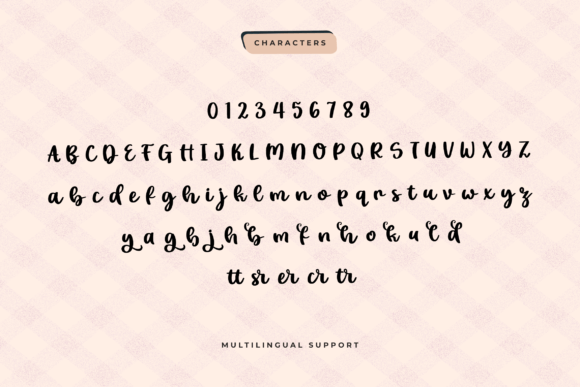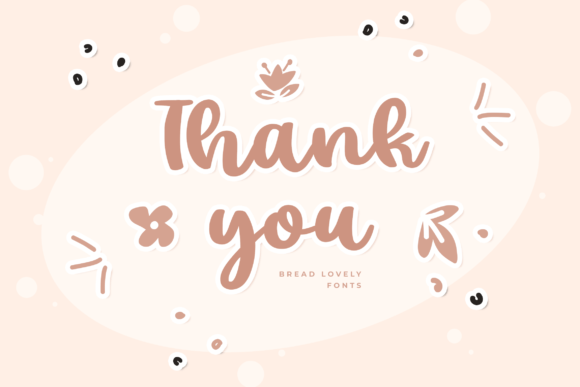
The Sweet Spot: Discovering Bread Lovely Font
I still remember the design project that led me to fall in love with the Bread Lovely font. I was working on a whimsical branding campaign for a bakery, and I needed a font that could capture the warmth and playfulness of their brand. After hours of scrolling through font libraries, I stumbled upon Bread Lovely, and it was like the icing on the cake (pun intended)! This cute handwritten script font instantly resonated with the bakery’s vibe, and I knew I had found the perfect match.
What I Love About Bread Lovely ✨
- ✅ Its whimsical and charming personality is perfect for designs that need a touch of playfulness
- ✅ The font’s handwritten feel makes it ideal for quotes, poems, and other creative writing projects
- ✅ Bread Lovely’s versatility allows it to shine in various design applications, from shirt designs to website headers
- ✅ The font’s clean and legible design ensures that it remains readable even at smaller sizes
While Bread Lovely is an amazing font, it’s not without its quirks. For instance:
- ⚠️ Some letters may appear a tad too ‘cutesy’ for very formal or corporate designs
- ⚠️ The font’s script nature means it may not be the best choice for very long blocks of text
- Experiment with OpenType features, such as ligatures and stylistic alternates, to add personality to your text
- Explore the OpenType panel to activate features like glyphs, ligatures, and stylistic sets
Bread Lovely was designed with the intention of capturing the warmth and playfulness of handwritten scripts. Its creator aimed to craft a font that would bring a smile to the viewer’s face, making it perfect for designs that require a touch of whimsy. Whether it’s a bakery’s branding or a children’s book, Bread Lovely is sure to delight.
Q: What type of designs is Bread Lovely best suited for?
A: Bread Lovely is perfect for designs that require a touch of whimsy and playfulness, such as quotes, shirt designs, websites, branding, children’s designs, blogs, logos, invitations, and more!
A: Yes, Bread Lovely supports OpenType features, including ligatures, stylistic alternates, and glyphs. This allows you to add an extra layer of creativity to your designs.